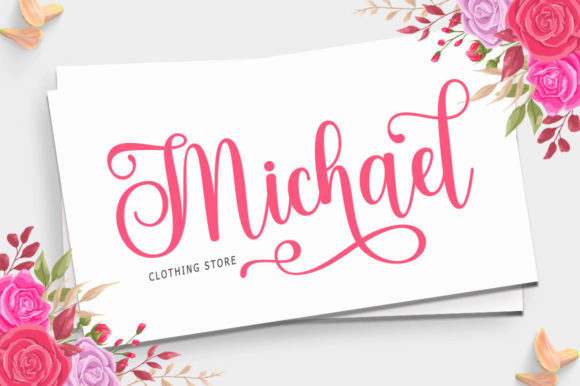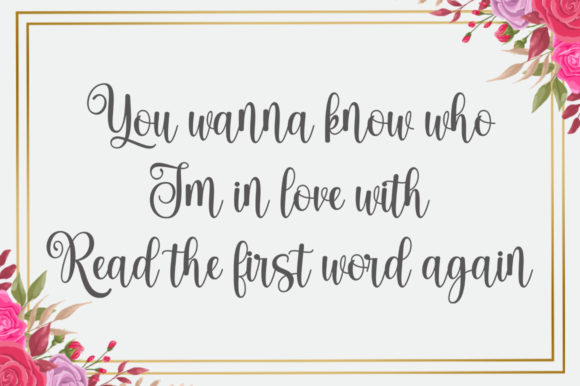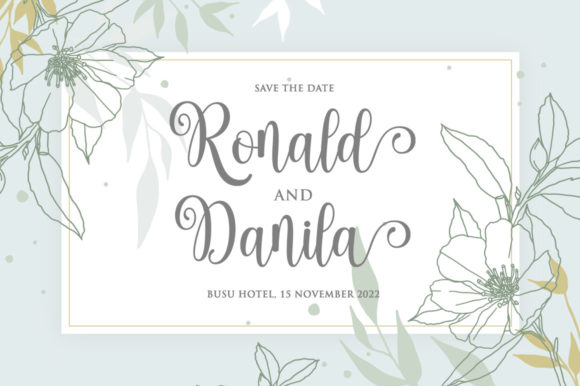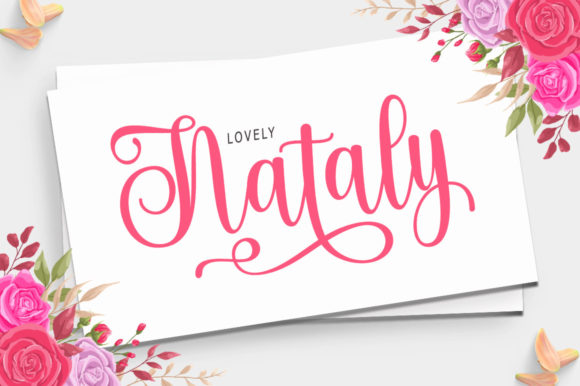
Introducing Amalyna Font: The Modern and Sweet Handwritten Font
Are you looking for a font that can add a touch of elegance and sophistication to your designs? Look no further than Amalyna Font, a modern and sweet handwritten font that is sure to make your projects stand out. With its unique and dancing characters, Amalyna Font is the perfect choice for designers and crafters who want to add a chic and stylish accent to their work.
What Makes Amalyna Font Special?
Amalyna Font is a modern and sweet handwritten font that features characters that seem to dance along the baseline. This unique design element gives the font a playful and whimsical feel, making it perfect for a variety of projects, from wedding invitations and branding materials to social media graphics and more. The font’s modern and sleek design ensures that it will fit in perfectly with any contemporary design aesthetic.
One of the best things about Amalyna Font is that it is PUA (Private Use Area) encoded. This means that you can access all of the glyphs and swashes with ease, giving you even more creative freedom and flexibility when working with the font. With PUA encoding, you can easily access and use the font’s various features, such as ligatures, stylistic alternates, and swashes, to create unique and eye-catching designs.
Uses for Amalyna Font
Amalyna Font is a versatile font that can be used for a wide range of purposes. Here are just a few ideas to get you started:
• Wedding Invitations: Add a touch of elegance and sophistication to your wedding invitations with Amalyna Font. The font’s modern and sweet design makes it perfect for formal and informal wedding stationery.
• Branding Materials: Use Amalyna Font to create unique and eye-catching branding materials, such as logos, business cards, and brochures. The font’s playful and whimsical feel makes it perfect for brands that want to stand out from the crowd.
• Social Media Graphics: Add a touch of personality to your social media graphics with Amalyna Font. The font’s modern and sleek design makes it perfect for creating engaging and shareable graphics.
• Crafting Projects: Amalyna Font is also perfect for crafters who want to add a personal touch to their projects. Use the font to create custom titles, headings, and text for your crafting projects, such as scrapbooking, card making, and more.
Tips for Using Amalyna Font
Here are a few tips for using Amalyna Font to get the most out of this beautiful font:
• Experiment with Different Sizes: Amalyna Font looks great in a variety of sizes, from small and delicate to large and bold. Experiment with different sizes to find the one that works best for your project.
• Play with Ligatures and Swashes: Take advantage of Amalyna Font’s PUA encoding by experimenting with ligatures and swashes. These features can add an extra touch of elegance and sophistication to your designs.
• Pair with Other Fonts: Amalyna Font pairs well with a variety of other fonts, from modern and sleek sans serifs to elegant and sophisticated serifs. Experiment with different font pairings to find the one that works best for your project.
Amalyna Font is a modern and sweet handwritten font that is sure to add a touch of elegance and sophistication to your designs. With its unique and dancing characters, PUA encoding, and versatility, Amalyna Font is the perfect choice for designers and crafters who want to create unique and eye-catching projects. Whether you’re working on a wedding invitation, branding materials, social media graphics, or crafting projects, Amalyna Font is sure to make your project stand out.